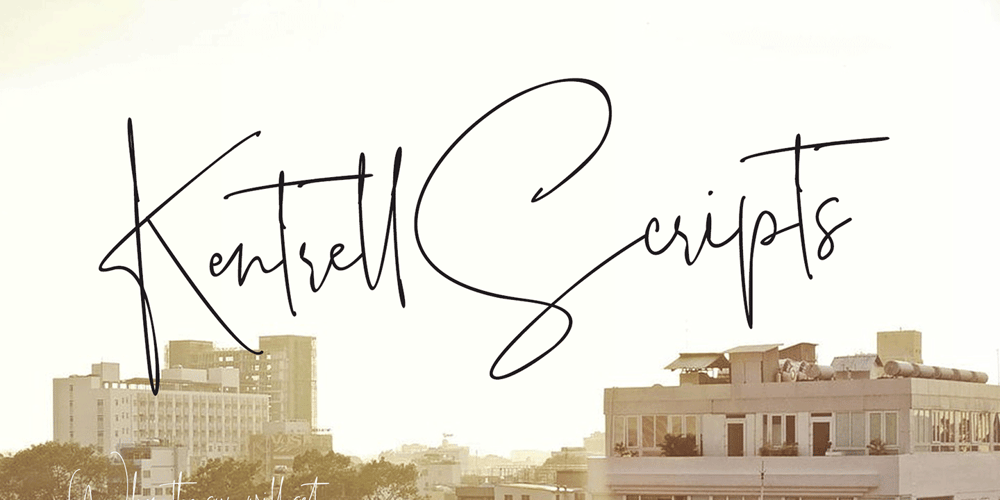
Kentrell Scripts Font Family was designed by Ayi Teiry and published by eyetype. Kentrell Scripts contains 1 styles and family package options. Nigthfall a work that is purely a result of handwriting, has a natural characteristic. this is perfect for invitations, signatures, blogs, social media, business cards, product brands.Nigthfall a work that is purely handwritten, has its own characteristics with the style of monoline It is perfect for invitations, signatures, blogs, social media, business cards, product brands, also equipped with 52 ligature.OpenType features can be accessed by using OpenType smart programs such as Adobe Photo Shop, Adobe Illustrator, Adobe Indesign, Corel Draw and Microsoft Office. can also be accessed through the character map.